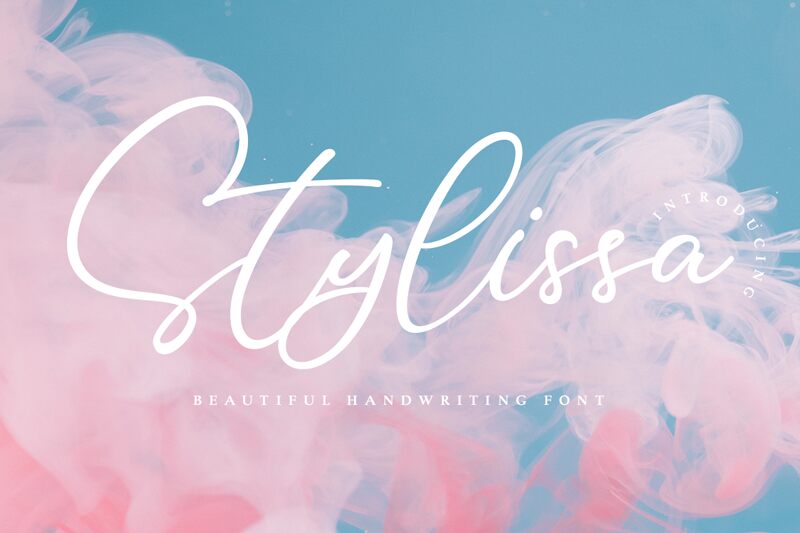
Stylissa, crafted by Mayofont, exudes a natural elegance with its handwritten style that conveys a personal touch. Its flowing, organic lines mirror the nuances of genuine penmanship, while the playful yet sophisticated curves lend a sense of individuality and flair. This font's charm lies in its ability to blend casual grace with a hint of luxury.
Perfect for invitations, branding, and editorial design where personality is key, Stylissa brings life to words and connects with the reader on an intimate level. Whether it's adding character to business cards or warmth to personal blogs, this font truly transforms text into an extension of the designer’s own hand.
Stylissa